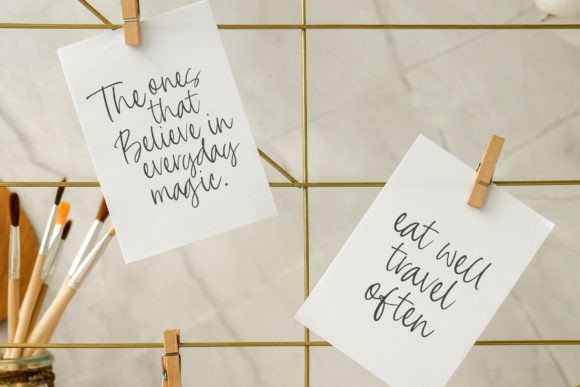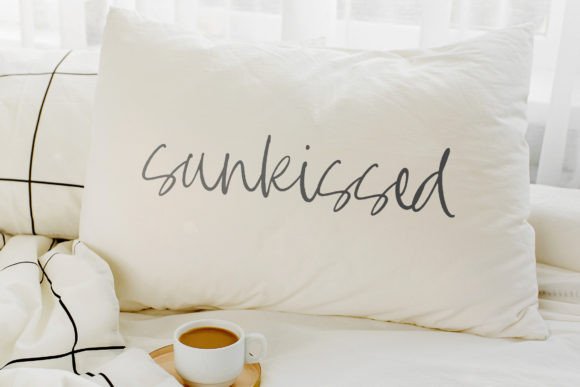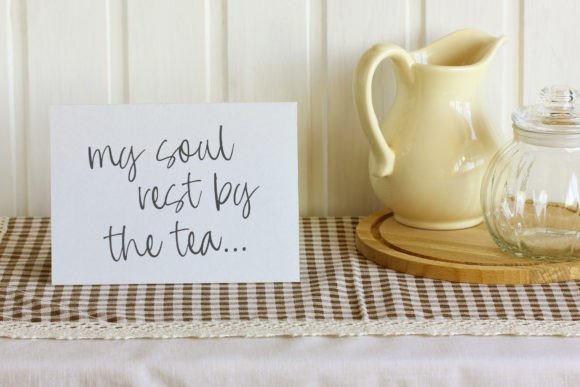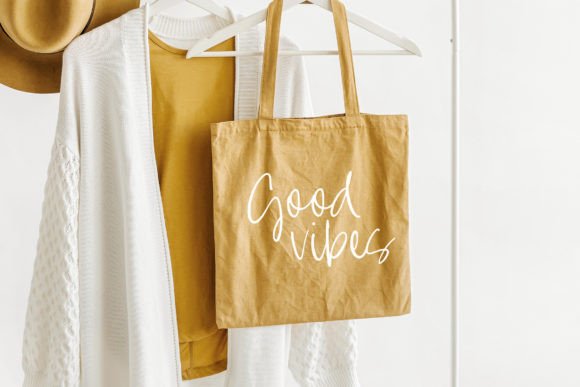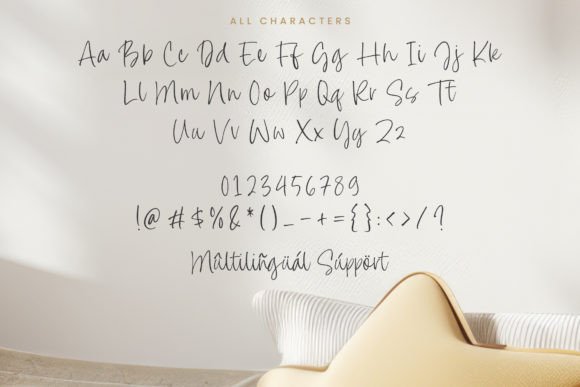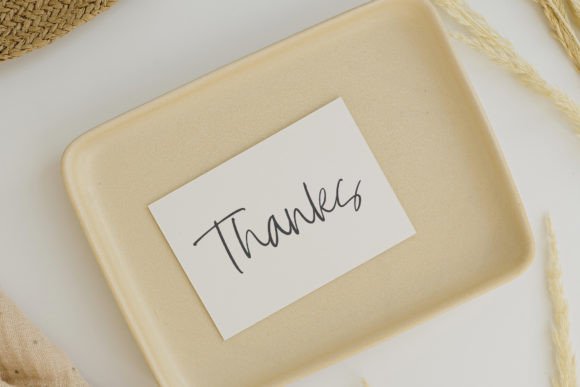
Discover the Charm of Betty Dolls Font: Elevate Your Designs with Playful Elegance
Are you on the hunt for a font that embodies the perfect blend of playfulness and sophistication? Look no further than Betty Dolls Font, a chic and contemporary handwritten font that has captured the hearts of designers and crafters alike. With its fluid strokes, whimsical curls, and charming touch, Betty Dolls is the ideal choice for adding a stylish and casual flair to a wide range of projects, from invitations and branding to social media and beyond.
The Unique Characteristics of Betty Dolls Font
So, what sets Betty Dolls Font apart from other fonts in its class? For starters, its fluid strokes and whimsical curls create a sense of movement and playfulness, making it perfect for designs that require a touch of personality. At the same time, the font’s balance between readability and artistic flair ensures that it remains clear and legible, even at smaller sizes. This makes Betty Dolls a versatile choice for both formal and informal projects, from wedding invitations and business branding to social media graphics and craft tutorials.
One of the things that makes Betty Dolls Font so special is its incredible versatility. Whether you’re a designer, crafter, or DIY enthusiast, this font can be used to add a touch of elegance and whimsy to a wide range of projects. Here are just a few ideas to get you started:
- Wedding Invitations: Add a touch of romance and whimsy to your wedding invitations with Betty Dolls Font. Its fluid strokes and curly details create a beautiful, feminine look that’s perfect for wedding stationery.
- Branding: Use Betty Dolls Font to add a playful, yet professional touch to your business branding. Its unique blend of elegance and whimsy makes it perfect for logos, business cards, and more.
- Social Media Graphics: Take your social media graphics to the next level with Betty Dolls Font. Its clear, legible letters and playful details make it perfect for creating eye-catching graphics and posts.
- Craft Tutorials: Add a personal touch to your craft tutorials with Betty Dolls Font. Its whimsical curls and fluid strokes create a charming, DIY feel that’s perfect for crafting and sewing projects.
Why Designers and Crafters Love Betty Dolls Font
So, why have designers and crafters fallen in love with Betty Dolls Font? For one, its unique blend of playfulness and elegance makes it a standout in a sea of more traditional fonts. Additionally, its versatility and readability make it perfect for a wide range of projects, from formal to informal. Here are just a few reasons why designers and crafters can’t get enough of Betty Dolls Font:
- Easy to Read: Despite its playful, cursive style, Betty Dolls Font remains clear and legible, even at smaller sizes.
- Highly Versatile: Use Betty Dolls Font for everything from formal wedding invitations to informal social media graphics.
- Unique and Eye-Catching: Betty Dolls Font is sure to turn heads with its whimsical curls and fluid strokes.
Getting Started with Betty Dolls Font